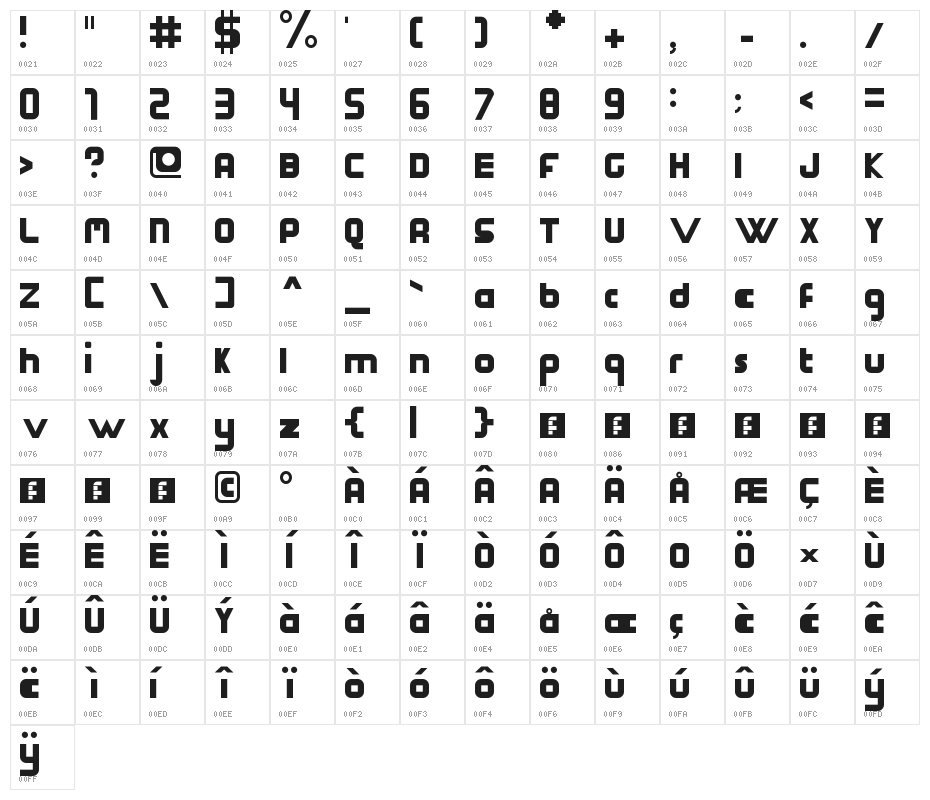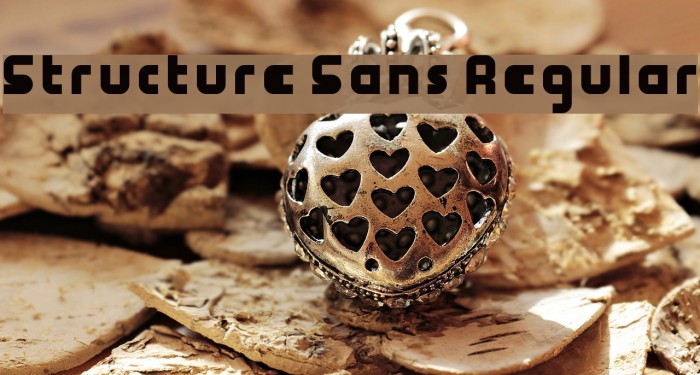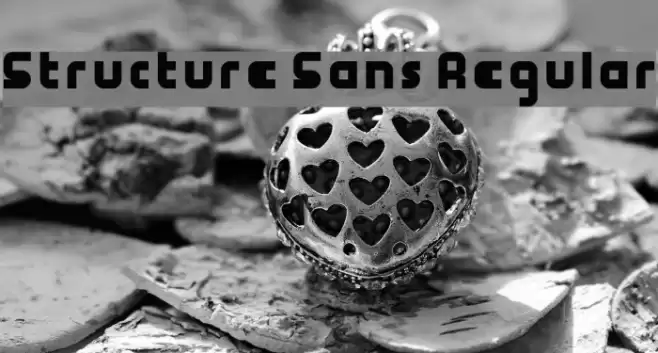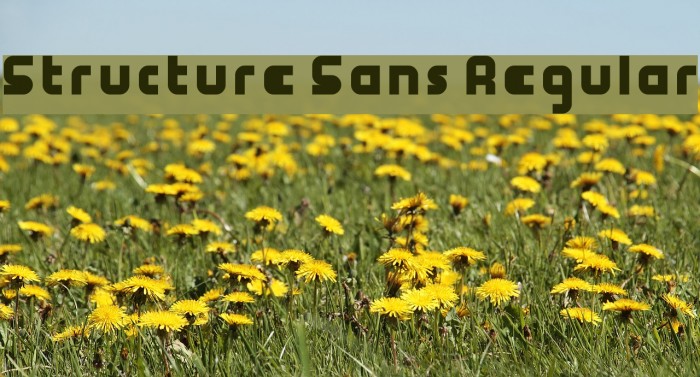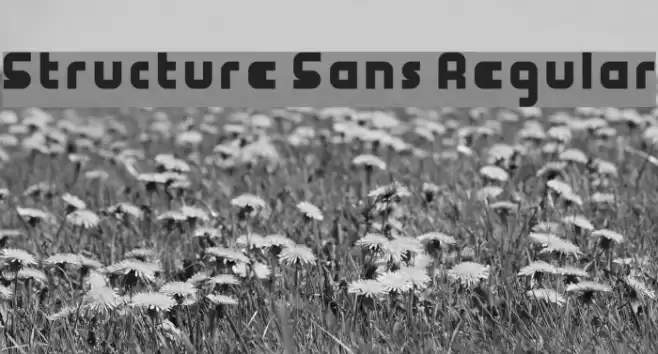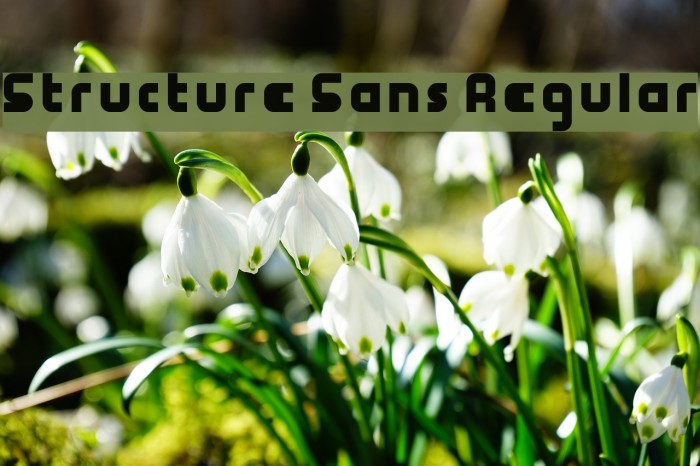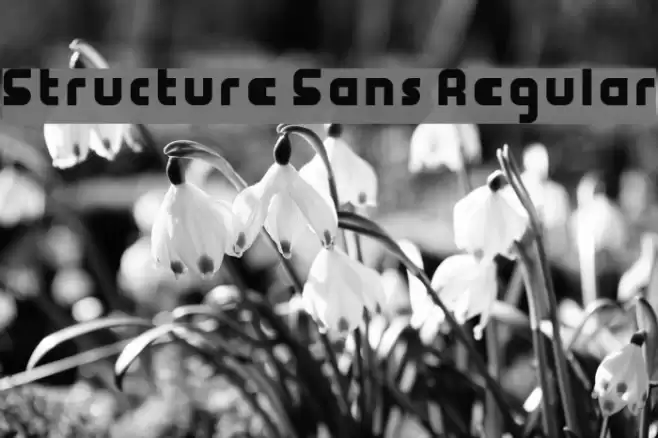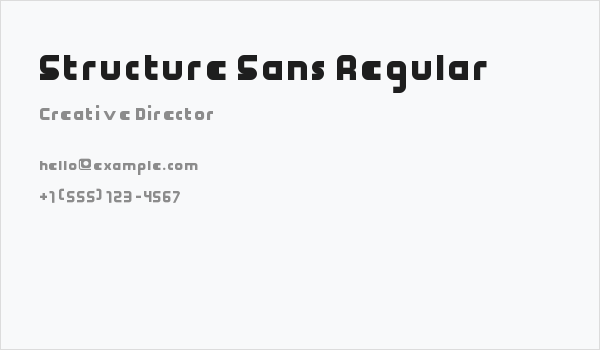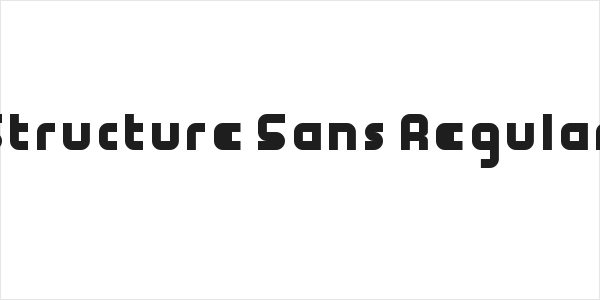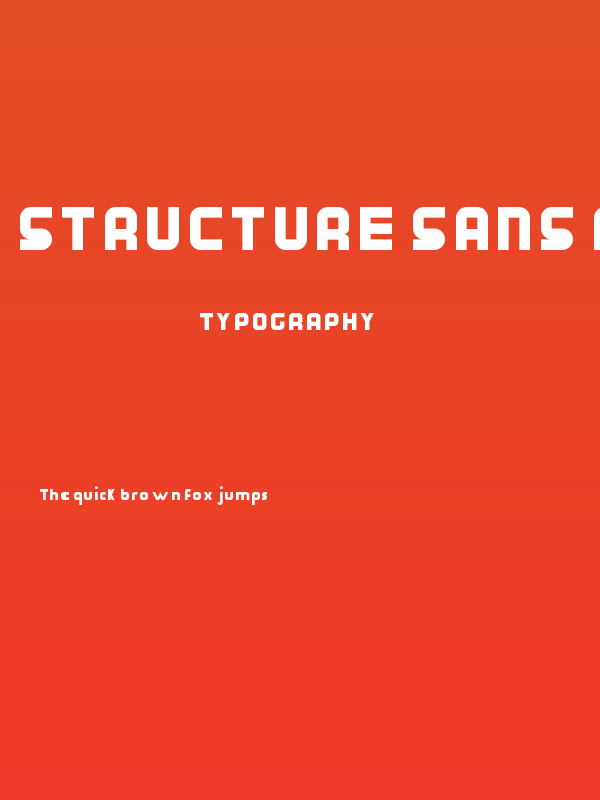
Structure Sans Regular Font
Structure Sans Regular Description
This font exhibits a bold and structured design, characterized by its geometric shapes and uniform stroke width. The letters are crafted with a modern, futuristic aesthetic, featuring rounded edges and a consistent height across both uppercase and lowercase characters. The numerals and special characters maintain the same boldness and clarity, making them easily legible. The overall design is clean and minimalistic, suitable for digital and print media where a strong visual impact is desired.
| Use Case | Headlines, Logos, Digital Interfaces |
| Proposed Projects | Ideal for technology branding, modern advertising, digital interfaces, and futuristic design projects. |